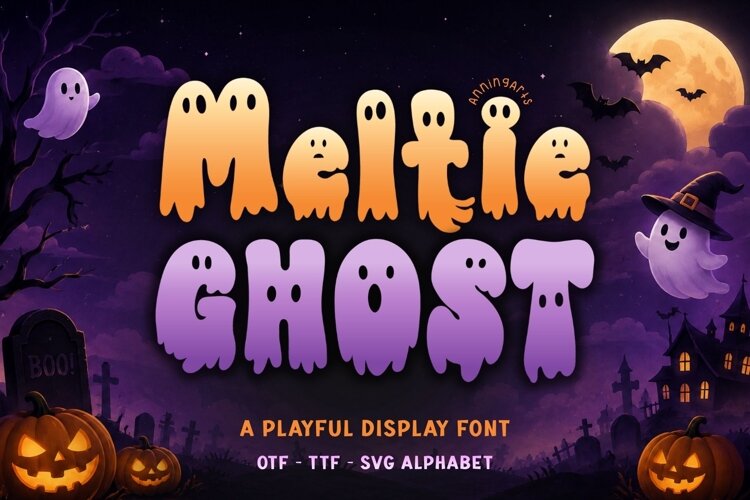
Meltie Ghost is a playful Halloween display font featuring cute ghost-shaped letters with funny spooky faces. The bold rounded letterforms give this font a friendly Halloween look that feels fun, charming, and not too scary, making it perfect for kids’ Halloween designs and seasonal craft projects.